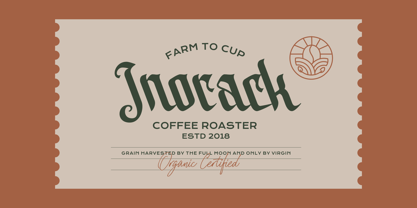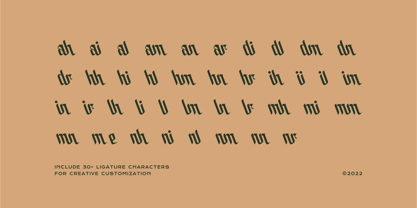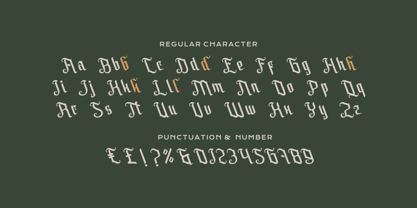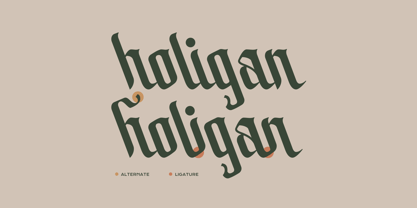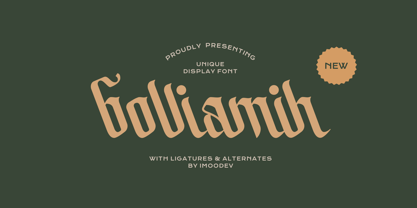
Bolliamih
by Imoodev
The Bolliamih Font Family was designed by Aulia Savira Putri and published by Imoodev. Bolliamih contains 1 styles. More about this family
Bolliamih italic gothic script font. It carries the classic sharpness and drama of medieval calligraphy like it ancient manuscripts, makes it perfect for modern branding, posters, album covers, logos, headlines and design projects that want a balance between a historical, traditional look and a modern flair.
Designers: Aulia Savira Putri
Foundry: Imoodev